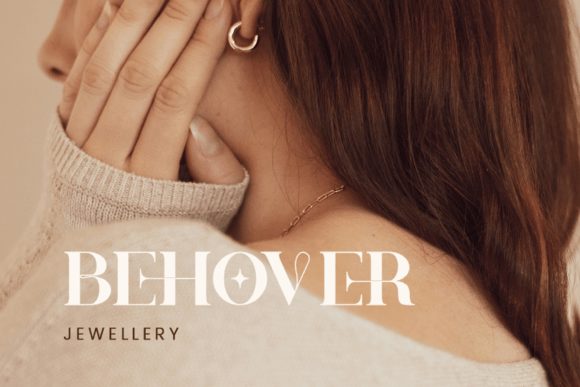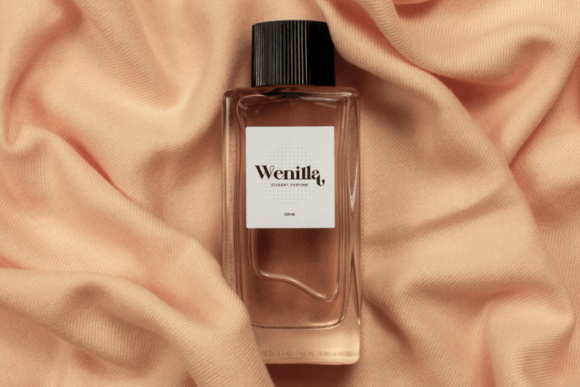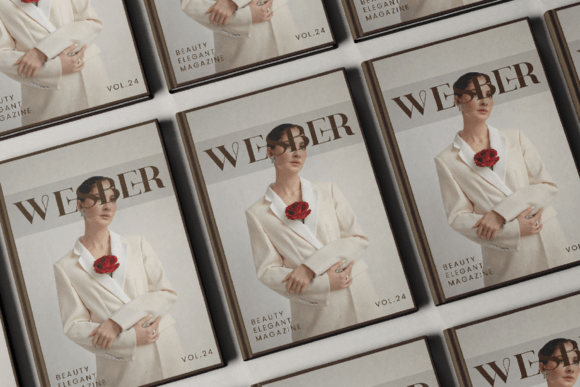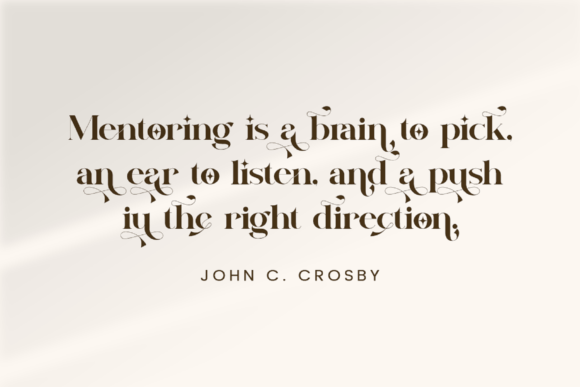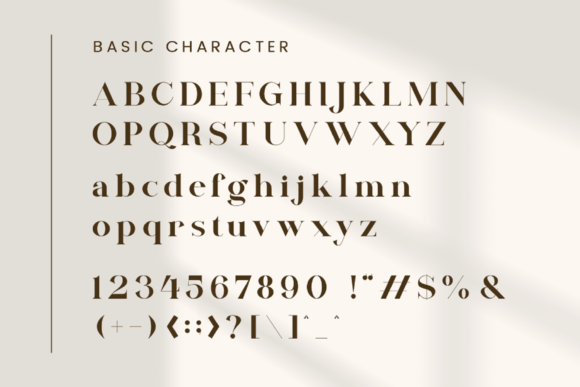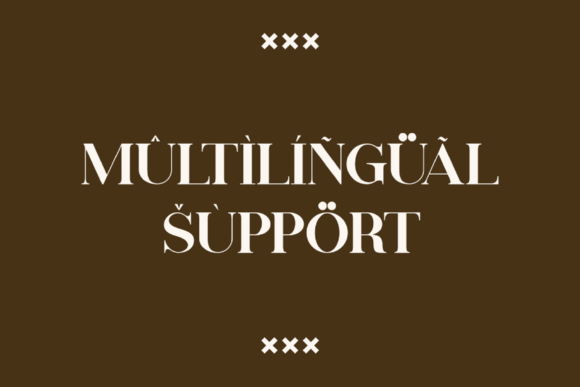
Introducing Emira Font: The Ultimate Stylish Ligature Typeface for Designers
Are you tired of using the same old fonts for your design projects? Look no further! Emira Font is a stylish ligature typeface inspired by the famous minimalist logo, perfect for creating stunning templates, brochures, videos, advertising branding, logos, and more. In this article, we’ll dive into the features and benefits of Emira Font, and explore how it can elevate your design game.
What is Emira Font?
Emira Font is a modern, elegant, and highly versatile typeface designed to meet the needs of creative professionals. Its sleek and minimalist aesthetic makes it perfect for a wide range of applications, from branding and advertising to digital media and print design. With its unique ligatures and stylish character set, Emira Font is sure to make your designs stand out from the crowd.
Key Features of Emira Font
- Standard Glyphs: The font includes a comprehensive set of standard glyphs, covering all the essential characters you need for your designs.
- Ligatures: Emira Font features beautiful ligatures, which allow you to create stunning, connected typography that adds a touch of elegance to your designs.
- International Accent: The font supports international accents, making it perfect for designing multilingual projects.
Multilingual Support
Emira Font includes multilingual support, allowing you to create designs that cater to a global audience. Whether you’re working on a project that requires support for multiple languages or simply want to add a touch of international flair to your designs, Emira Font has got you covered.
So, what sets Emira Font apart from other typefaces on the market? Here are just a few benefits that make it a must-have for designers and crafters:
- Unique and Stylish: Emira Font offers a fresh and stylish alternative to traditional typefaces, helping you to create designs that stand out from the crowd.
- Versatile: With its wide range of applications and compatibility with popular design software, Emira Font is the perfect addition to any design toolkit.
- Elegant Ligatures: The font’s beautiful ligatures add a touch of sophistication and elegance to your designs, making them perfect for high-end branding and advertising projects.
In conclusion, Emira Font is a stylish ligature typeface that offers a unique combination of elegance, versatility, and ease of use. Whether you’re a seasoned designer or a crafter looking to elevate your design game, Emira Font is the perfect choice for creating stunning templates, brochures, videos, advertising branding, logos, and more. With its comprehensive feature set, multilingual support, and compatibility with popular design software, Emira Font is sure to become a go-to typeface in your design toolkit.